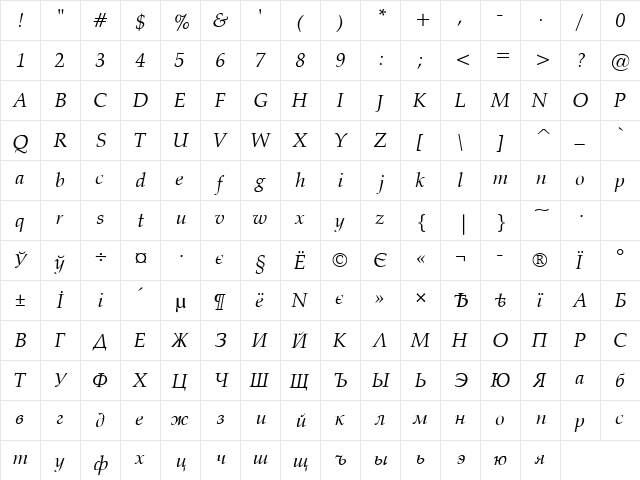
Palatino Normal-Italic
Design Context for Palatino Typeface
Palatino is a composed and adaptable typeface that performs quietly and consistently across a wide range of design contexts. Its italic angle brings a sense of urgency and motion to the letterforms.
Pro Tip: Try Palatino for annotation and caption copy alongside an upright companion — the contrast in angle creates a dynamic but ordered typographic system.